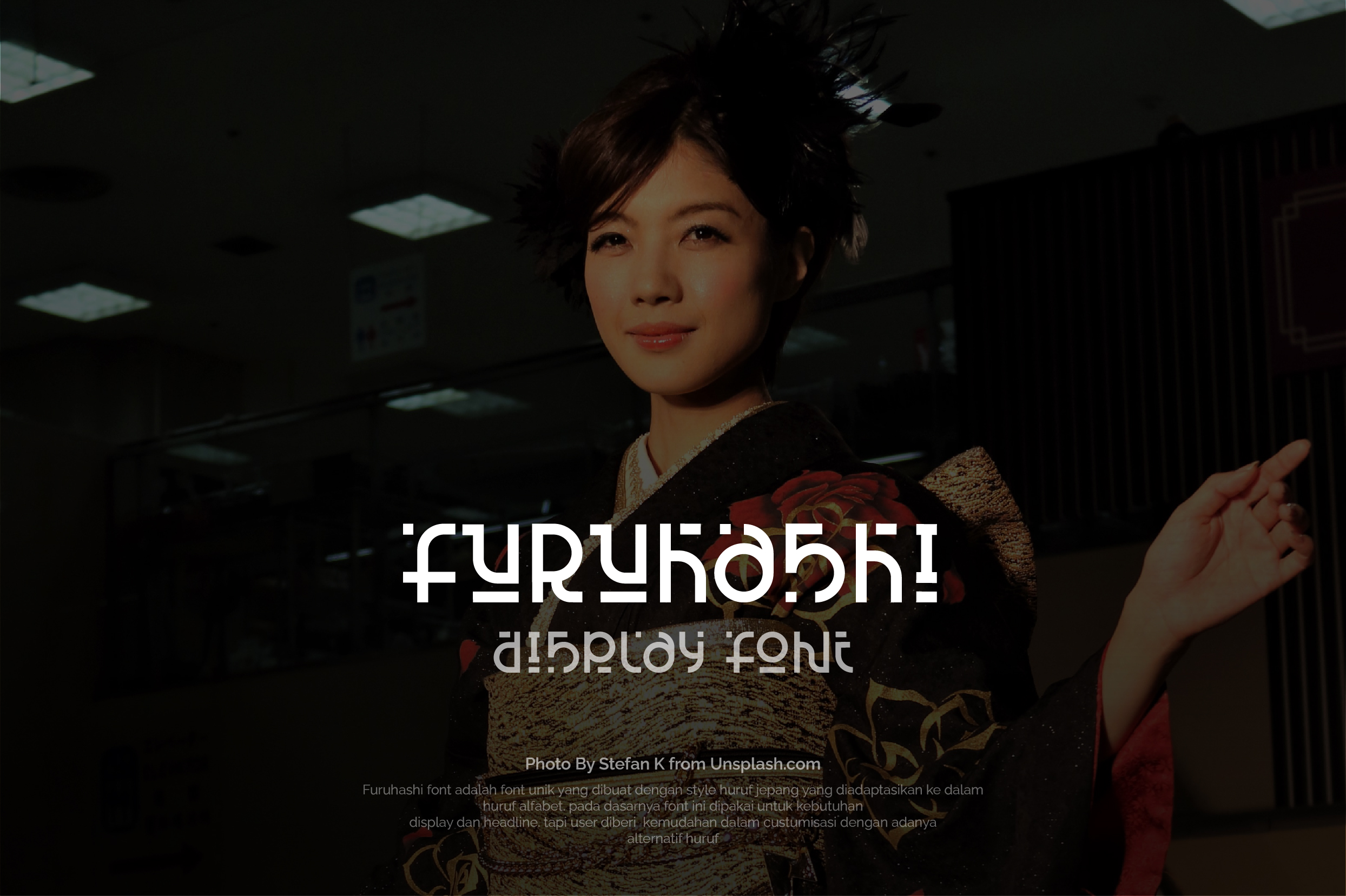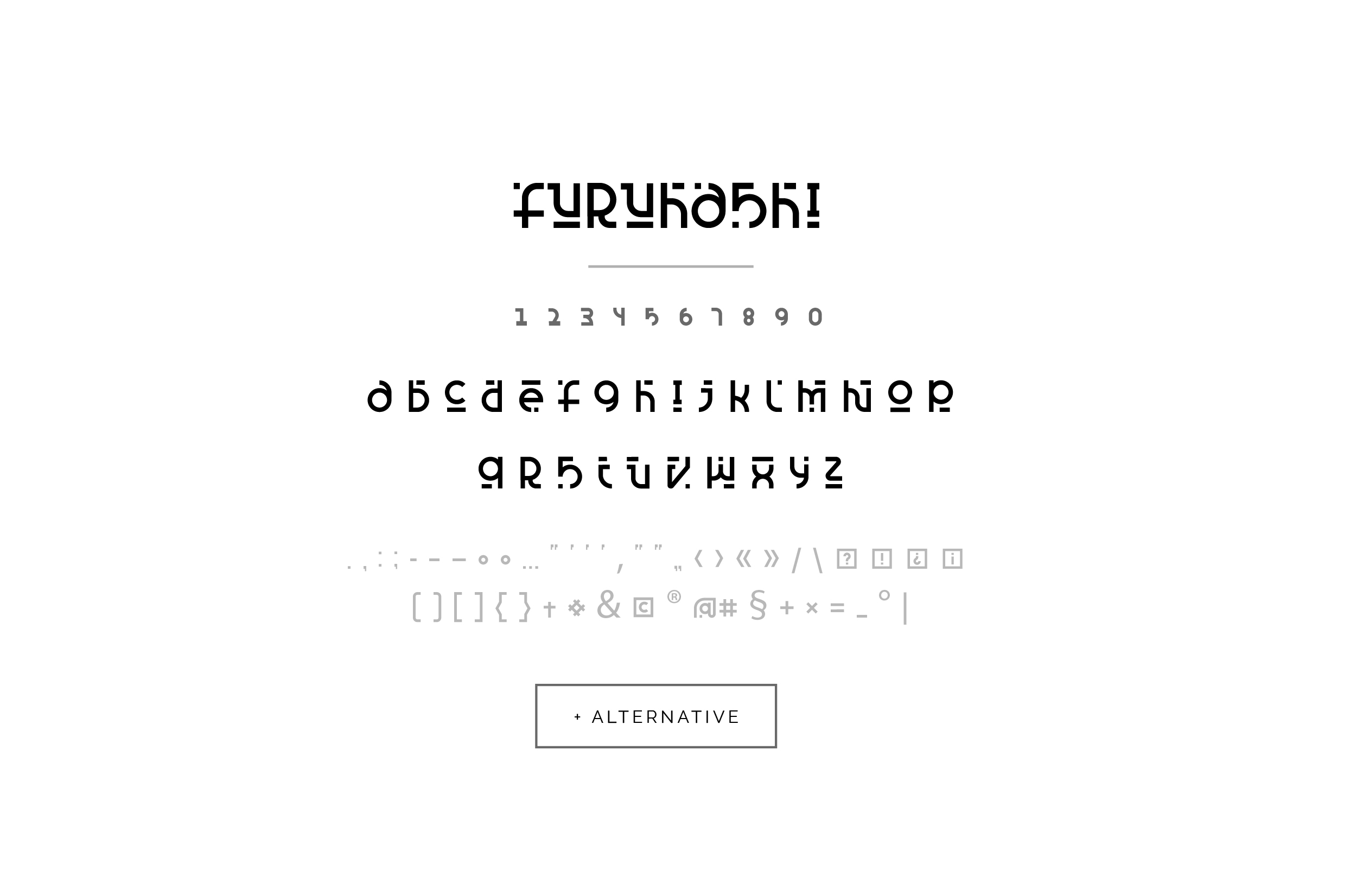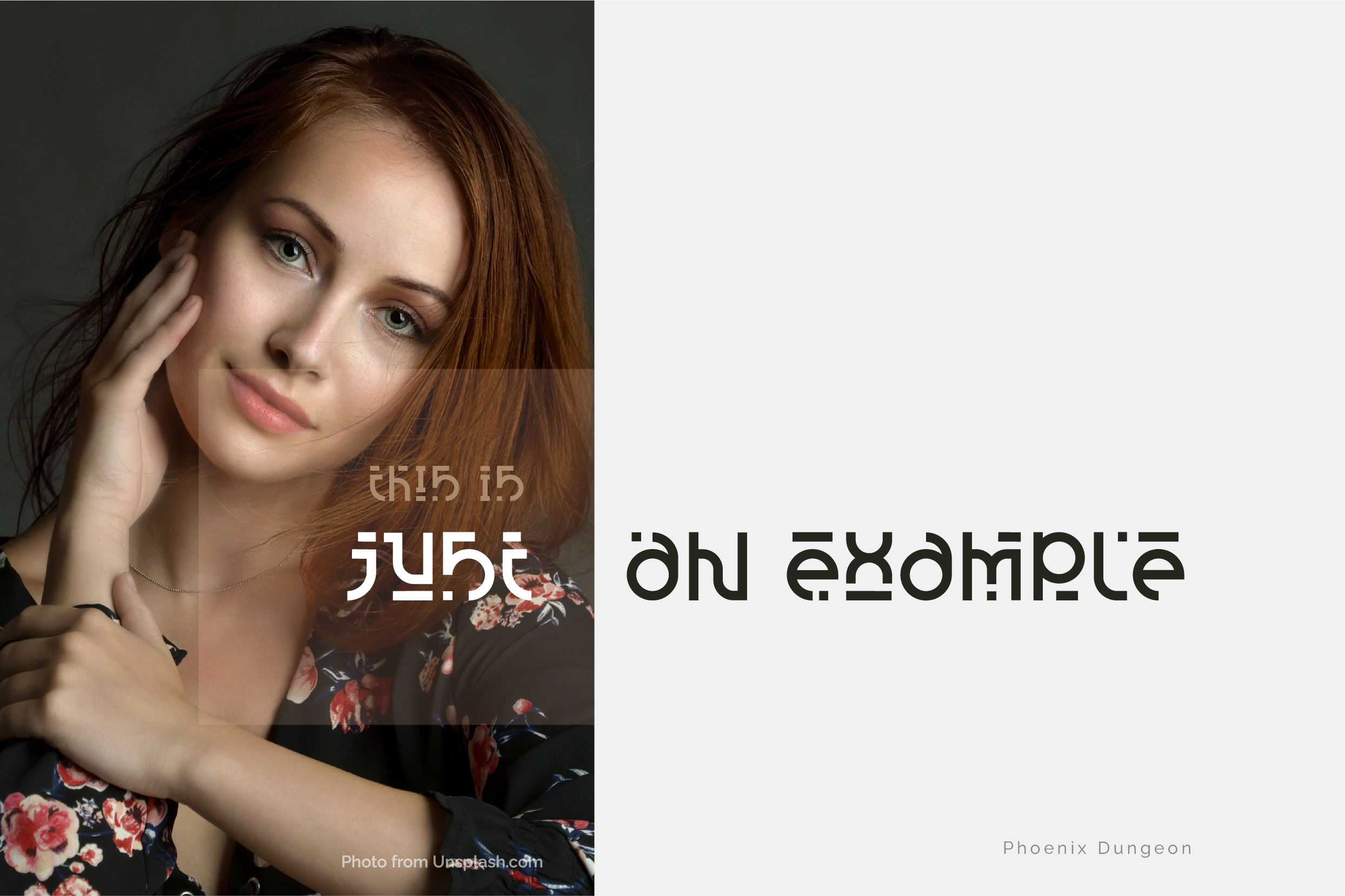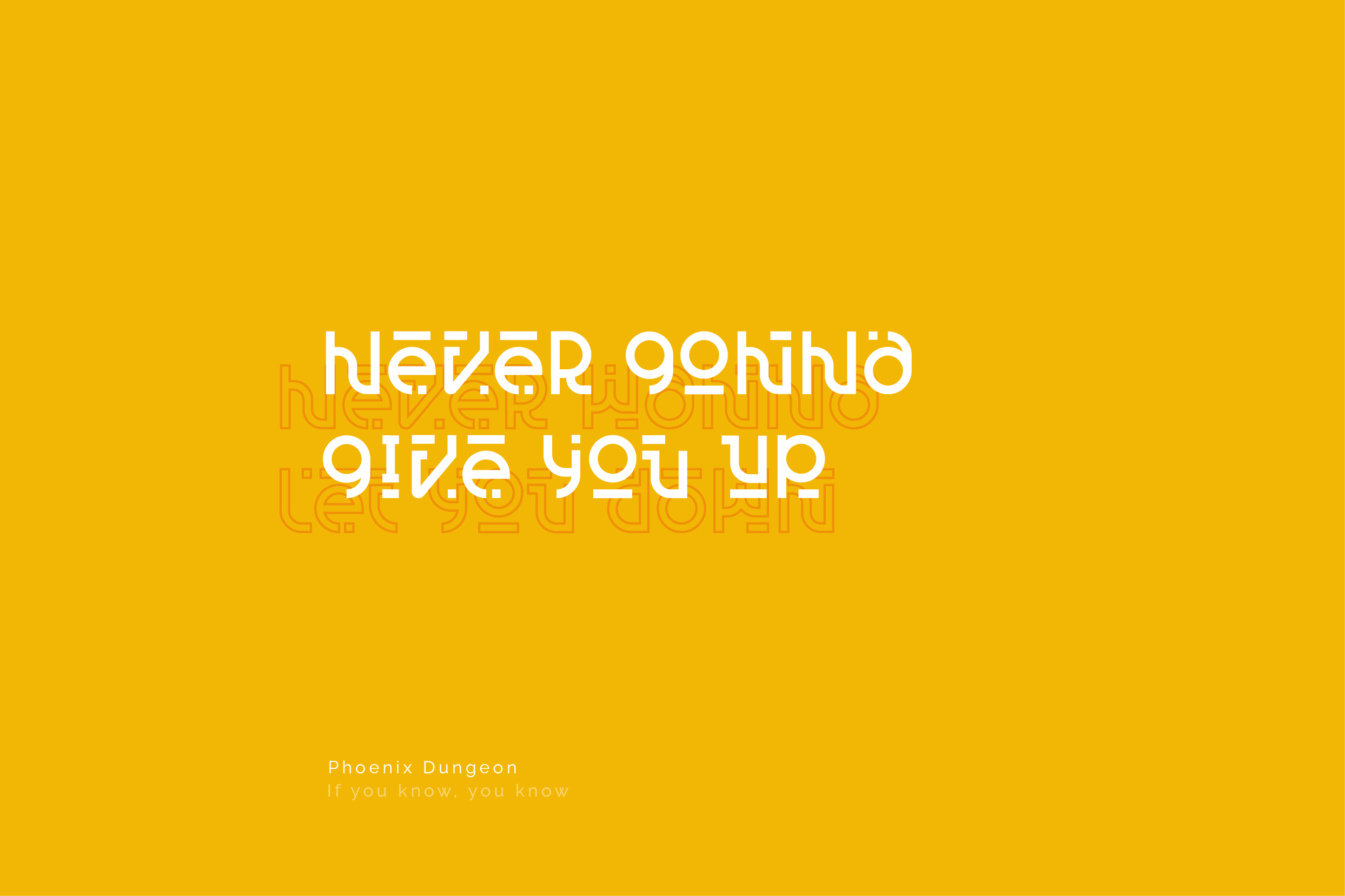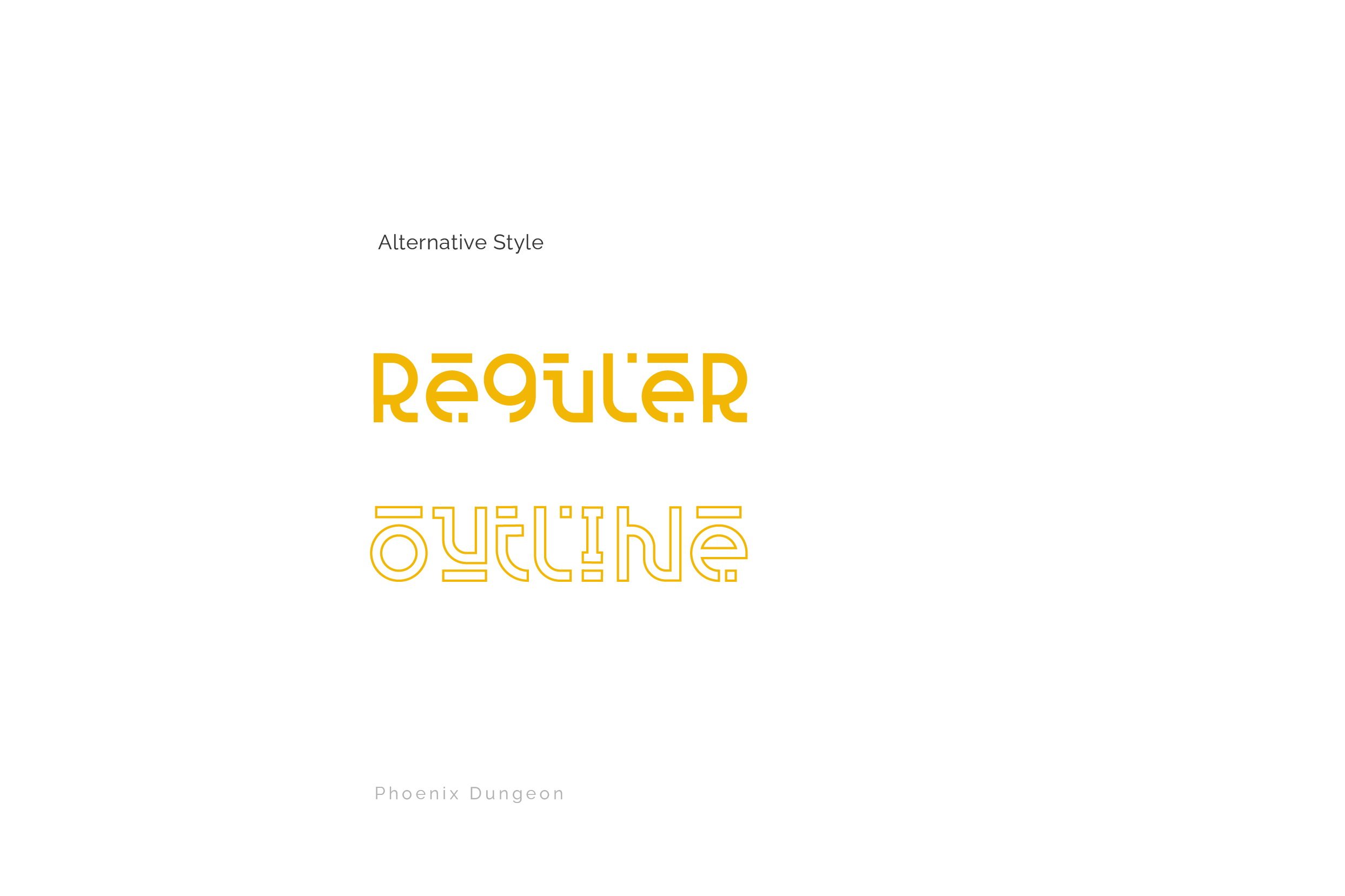
Furuhashi font is a unique font that is made in a Japanese style adapted to the letters of the alphabet. basically, this font is used for needs displays and headlines. but the user is given the ease of customization as it is alternative letters.